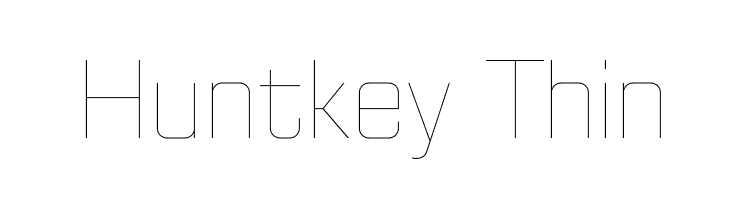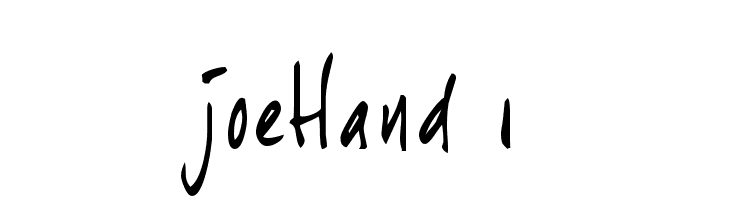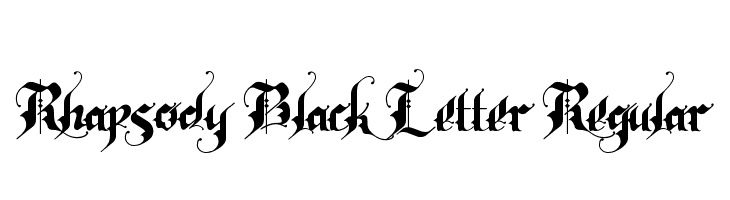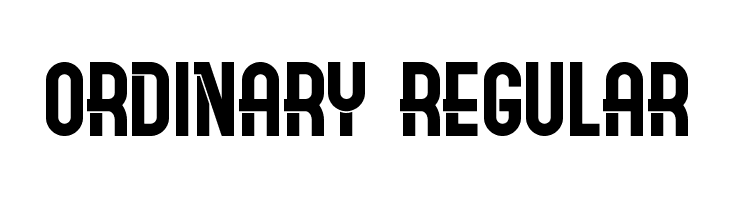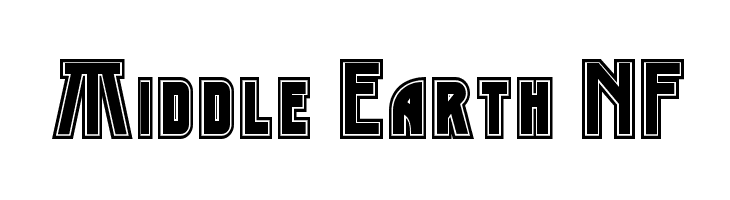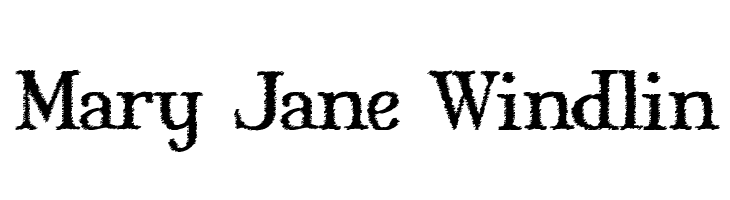
A sleek, minimalist font with thin, clean lines and a modern aesthetic.
A casual, handwritten font with a personal and authentic style.
A whimsical, nautical-themed font with playful, hand-drawn characters.
An ornate blackletter font with intricate detailing and dramatic flourishes.
A bold, geometric font with a modern and striking appearance.
A bold, outlined font with a fantasy-inspired, geometric style.
A classic serif font with a textured, vintage appearance.